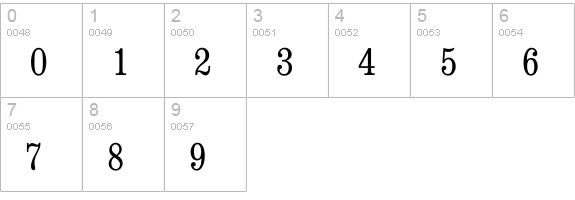
ConsortLightCondensedTab Font Details
ConsortLightCondensedTab is a sleek and elegant font that exudes sophistication and modernity. Its condensed style makes it ideal for projects where space is limited but style is paramount. The clean lines and sharp angles of this font give a professional and polished look to any design. Best of all, ConsortLightCondensedTab is available for free download at FontsMarket.com. This means you can easily access this high-quality font to elevate your projects without any cost. Whether you need a font for a website, a branding project, or any other creative endeavor, ConsortLightCondensedTab is here to add a touch of refinement to your work. Download it today and unleash its potential in your designs.